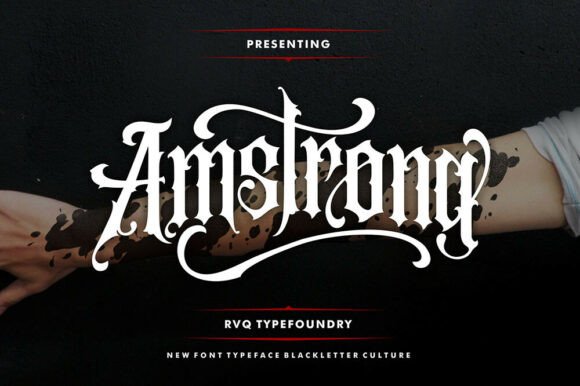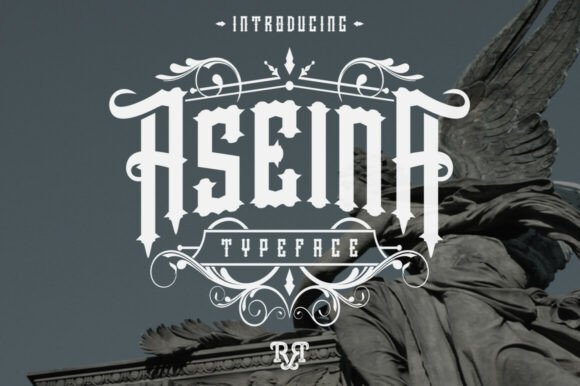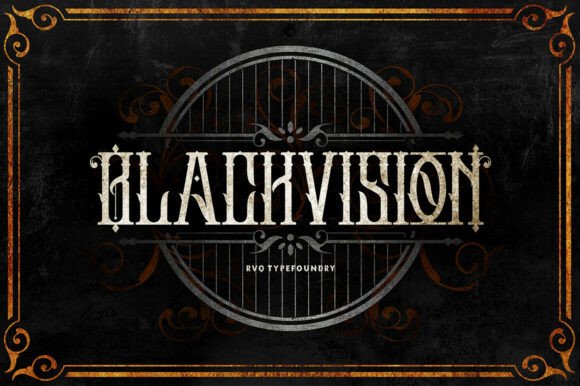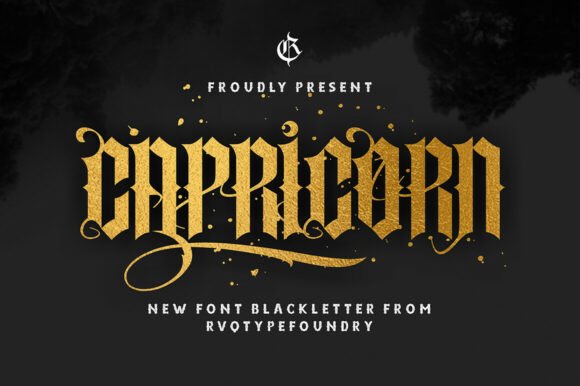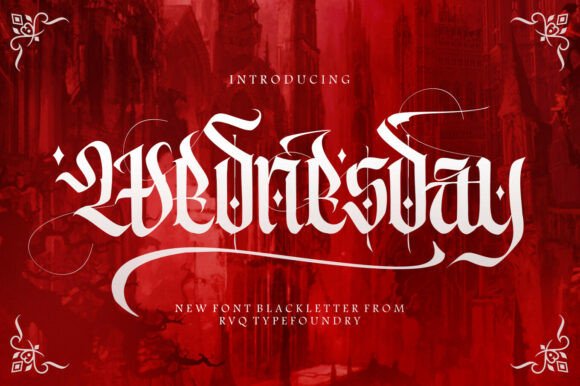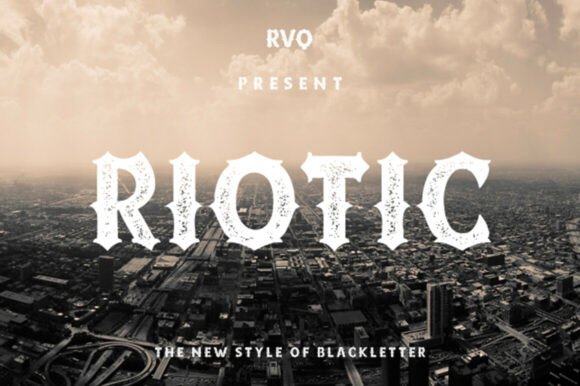
Blackletter Masterclass: The Ultimate Gothic Font Bundle
Unleash the power of medieval artistry with the Blackletter Font Bundle, a curated collection of 8 professional-grade typefaces that redefine the gothic aesthetic for the modern era. This comprehensive bundle offers unparalleled versatility for designs that demand authority, mystery, and historic grit.
The Art of Blackletter Typography
Blackletter typography has a rich history dating back to the Middle Ages. Characterized by its dramatic flourishes and intricate details, blackletter fonts evoke a sense of mystery, power, and tradition. From medieval manuscripts to modern-day designs, blackletter typography continues to captivate audiences with its unique blend of elegance and intensity.
Meet the Blackletter Font Bundle
The Blackletter Font Bundle is a carefully curated collection of 8 professional-grade typefaces, each designed to bring a unique perspective to the world of gothic typography. From the aggressive, sharp edges of Wednesday to the elegant, flowing curves of Amstrong, this bundle offers a diverse range of styles to suit any design need.
Key Features of the Bundle:
- 8 professional-grade typefaces, each with its own unique character and style
- Unparalleled versatility for designs that demand authority, mystery, and historic grit
- Perfect for high-end streetwear brands, cinematic movie posters, vintage-inspired brewery logos, and more
- Vector ornaments to perfectly complement your typography and create a fully immersive, ornate look
Redefining Gothic Aesthetics for the Modern Era
The Blackletter Font Bundle is not just a collection of fonts – it’s a comprehensive design solution that redefines the gothic aesthetic for the modern era. By combining traditional craftsmanship with digital precision, these fonts offer a “New Style” of blackletter that is both timeless and cutting-edge.
Design Possibilities
The Blackletter Font Bundle offers endless design possibilities for crafters and designers. Here are just a few examples:
- Streetwear branding: Create bold, eye-catching logos for high-end streetwear brands with fonts like Wednesday and Amstrong.
- Movie posters: Add a touch of mystery and intrigue to your cinematic movie posters with fonts like Noir and Gothic.
- Vintage-inspired logos: Create authentic, vintage-inspired logos for breweries, restaurants, and other businesses with fonts like Lombard and Carolingia.
What Sets This Bundle Apart?
So, what sets the Blackletter Font Bundle apart from other font collections? Here are just a few key factors:
- Quality: Each font in the bundle is professionally designed and crafted to ensure exceptional quality and consistency.
- Variety: With 8 unique typefaces and vector ornaments, this bundle offers an unparalleled range of design possibilities.
- Versatility: Whether you’re designing for print or digital, this bundle provides the flexibility to create stunning designs that demand attention.
| Font Name | Blackletter Bundle Font |
| Author | Rvq Type Foundry |
The Blackletter Font Bundle is a game-changer for designers and crafters looking to add a touch of medieval flair to their designs. With its curated collection of 8 professional-grade typefaces and vector ornaments, this bundle offers unparalleled versatility and design possibilities. Whether you’re creating high-end streetwear branding, cinematic movie posters, or vintage-inspired logos, this bundle provides the perfect solution for designs that demand authority, mystery, and historic grit.